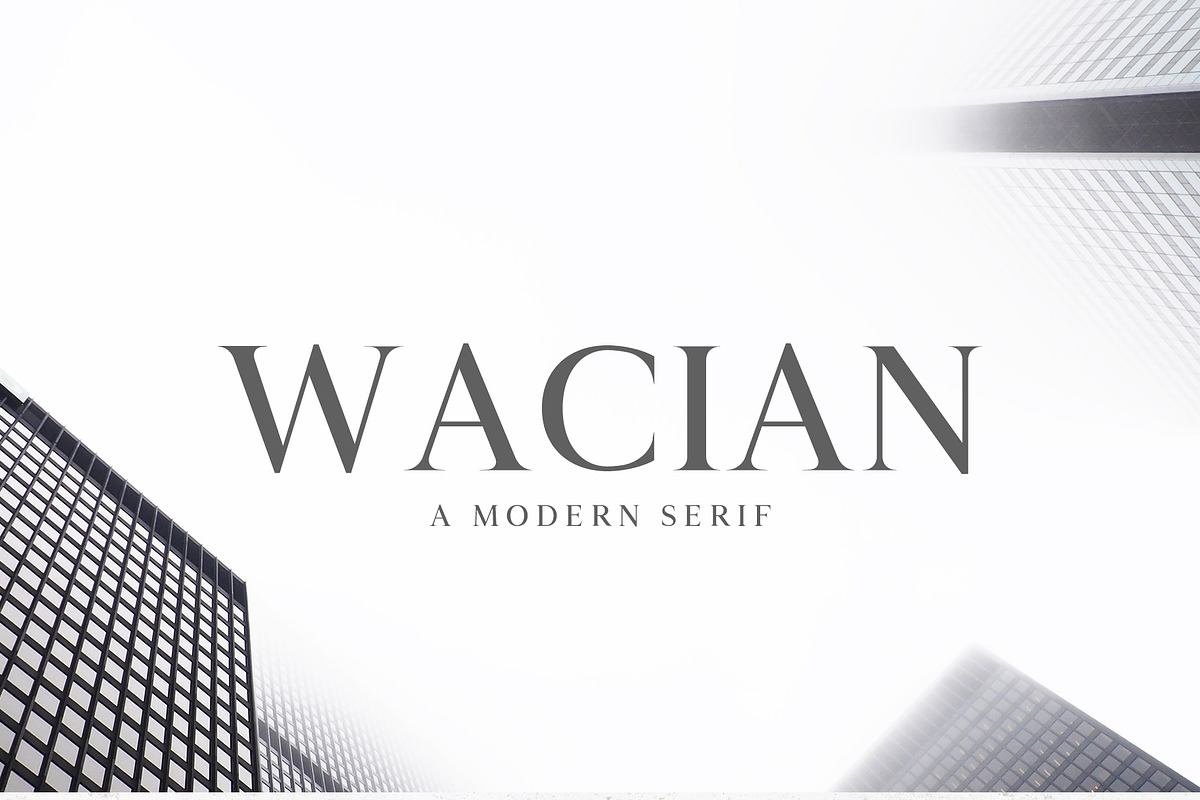
Wacian Serif Font Family Free Download is a versatile and elegant typeface family designed to bring a touch of sophistication to any project. With a range of weights and styles, from light to bold, this font family is perfect for both display and body text. Whether you’re creating logos, branding materials, websites, or editorial layouts, Wacian Serif delivers style and readability across all applications.
Its refined serifs and clean lines offer a perfect balance of modern and classic appeal, making it ideal for high-end projects, professional branding, and publishing.
The Wacian Serif Font Family’s flexibility ensures that it works beautifully in both digital and print formats, making it a must-have for designers looking for timeless elegance.